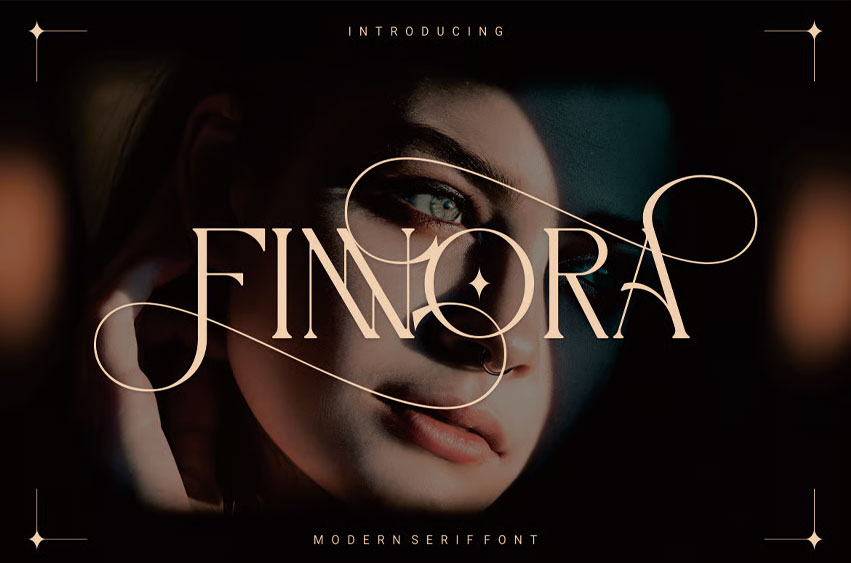
Finnora Font
Finnora Font is a bold and modern condensed typeface. With its strong, impactful lines and unique cut details, Finnora is perfect for creating eye-catching headlines, logos, and posters. Its bold, blocky letters convey strength and confidence, making it ideal for projects that need to stand out and leave a lasting impression.
Whether you’re designing for advertising, fashion, or creative branding, Finnora’s robust, condensed style provides a versatile solution for enhancing visual impact.
Finnora Font Preview